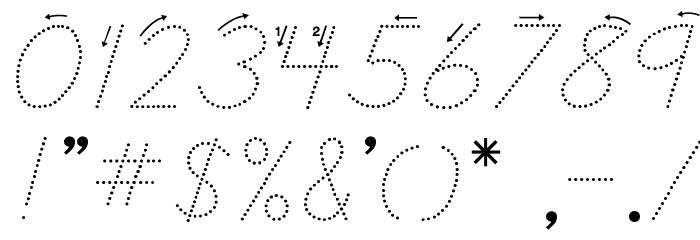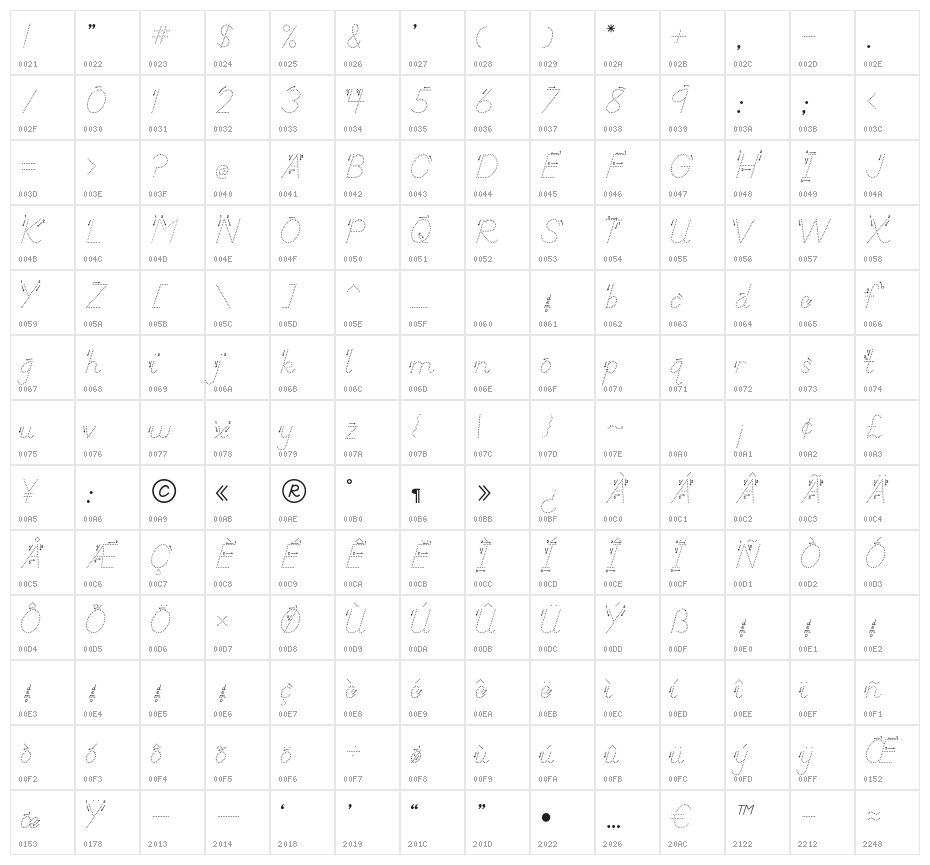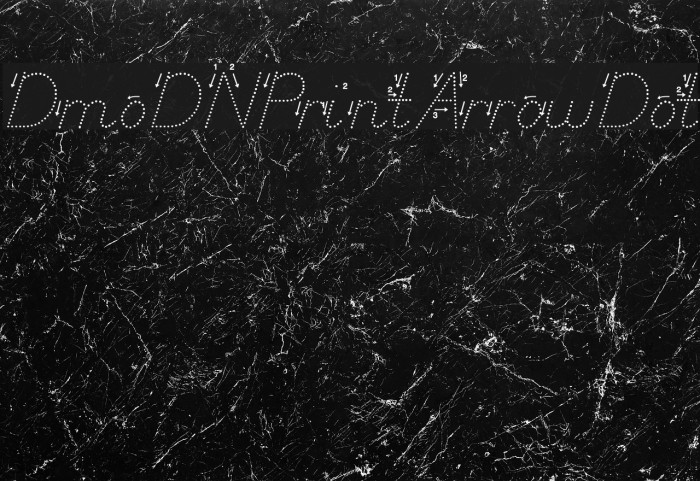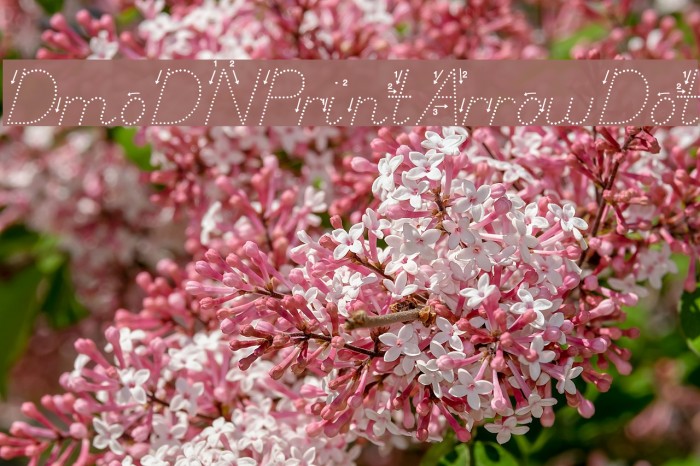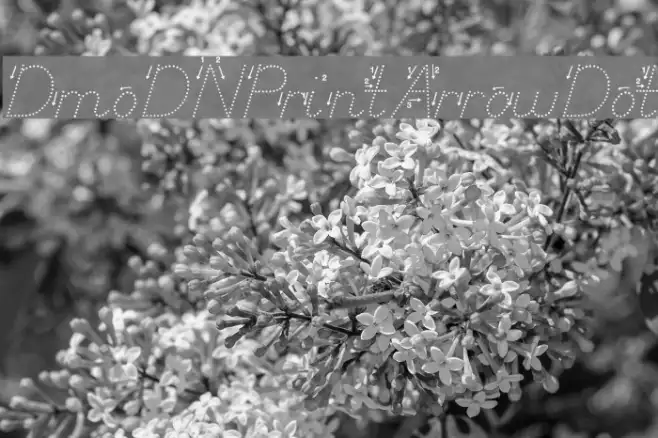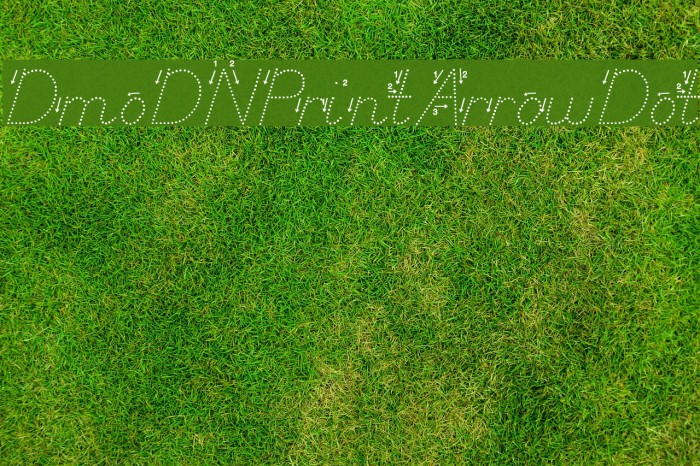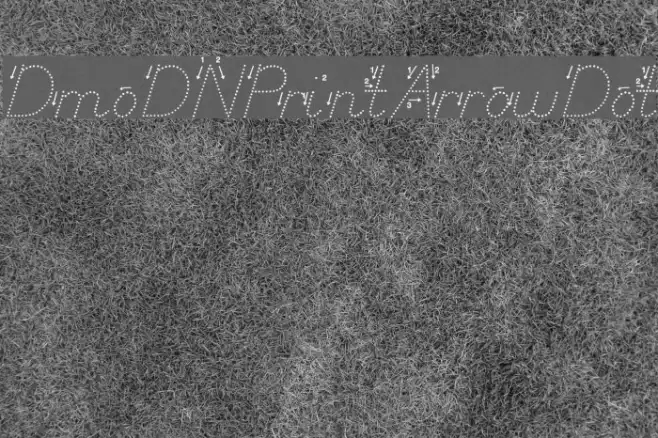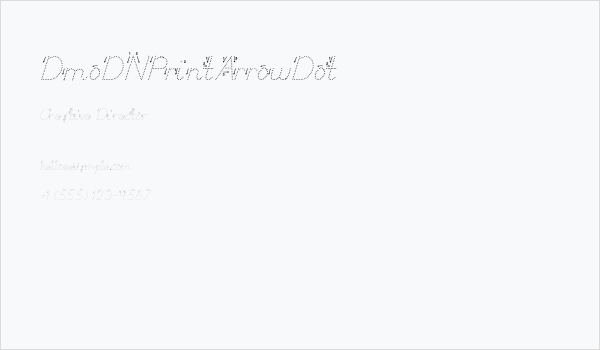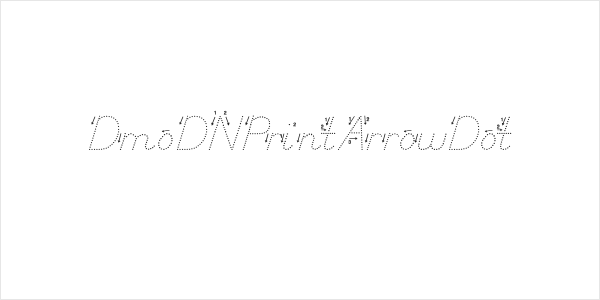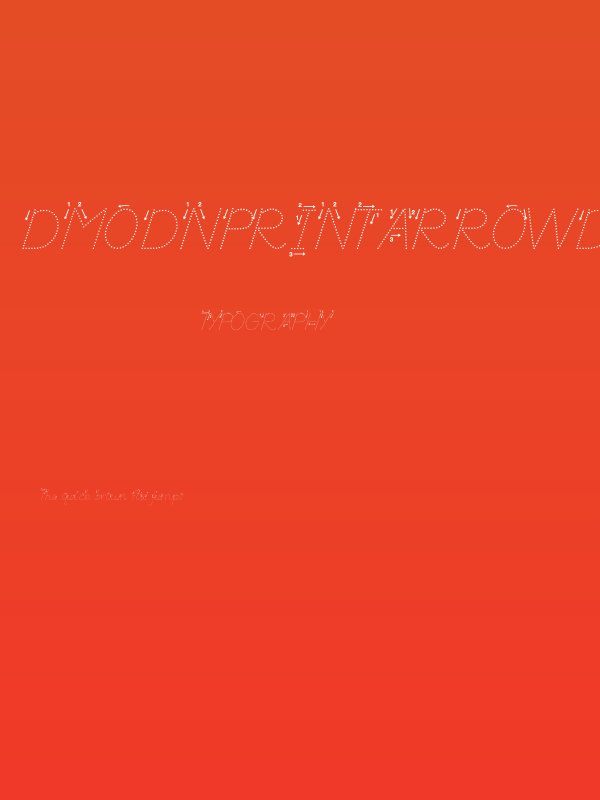
DmoDNPrintArrowDot Font
DmoDNPrintArrowDot Description
This font is designed to aid in learning the correct formation of letters and numbers. Each character is composed of dotted lines with directional arrows and numbers indicating the stroke order. The uppercase and lowercase letters, as well as numbers, are clearly defined with a focus on educational use. The style is simple and functional, emphasizing clarity and ease of understanding for beginners. The inclusion of special characters ensures a comprehensive learning tool.
| Overall Style | Functional |
| Use Case | Educational materials, handwriting practice. |
| Proposed Projects | Ideal for educational materials, handwriting practice sheets, and beginner writing tools. |